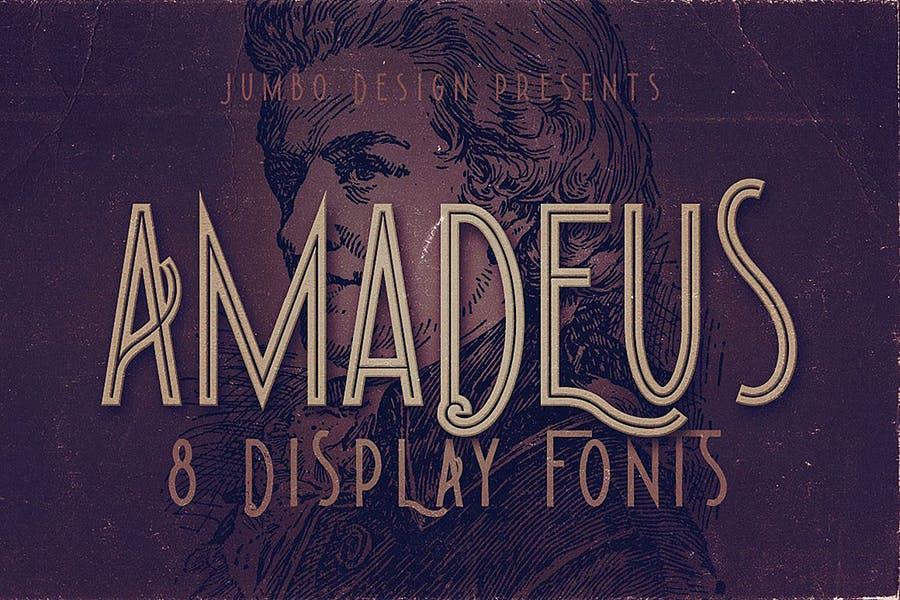
Amadeus - Display Font
Amadeus Display Font is perfect for classical music marketing, opera house signage, symphony concert posters, cultural institution branding, elegant theater programs, high-end artistic events, sophisticated entertainment venues, and refined cultural communications.
What makes Amadeus Display Font exciting is its classical sophistication that embodies the timeless elegance and artistic brilliance of classical music and cultural refinement. The font features majestic letterforms with aristocratic proportions and musical character that evoke concert halls, orchestral performances, and the enduring beauty of classical artistic tradition. Its distinctive classical styling and cultural appeal communicate artistic excellence, cultural heritage, and sophisticated refinement, making every message feel composed with artistic mastery and elevated by centuries of cultural tradition.
The Amadeus Display Font family includes regular weight with uppercase and lowercase letters, numerals, punctuation marks, and special characters. Premium versions often feature classical alternates and musical elements that enhance the sophisticated, artistic aesthetic perfect for cultural and entertainment applications.
This distinguished classical typeface brings instant cultural credibility and artistic authority to any music-focused project. Amadeus Display Font Free Download delivers exceptional results for cultural institutions and artistic organizations seeking to communicate classical excellence, cultural sophistication, and artistic heritage to educated audiences and classical music enthusiasts.
The majestic character of Amadeus Display Font makes it particularly valuable for symphony orchestras, opera companies, and cultural centers. Its excellent readability ensures program information and cultural messaging remain clear while maintaining the distinctive classical aesthetic that appeals to audiences seeking authentic artistic experiences and cultural sophistication.
Cultural marketers and artistic directors appreciate how Amadeus Display Font effortlessly conveys artistic authenticity and classical excellence. The font's majestic proportions and refined details create prestigious cultural materials that establish connections with audiences who value classical music, artistic tradition, and the sophisticated beauty of cultural heritage.
The versatile artistry of this typeface extends to music education, classical recording labels, and cultural tourism where classical authenticity enhances artistic credibility and cultural appeal. Amadeus Display Font Free Download provides creative professionals with an essential tool for developing memorable, culturally-rich designs that resonate with audiences who embrace classical music, artistic excellence, and the timeless sophistication of classical cultural heritage in their artistic and entertainment experiences.